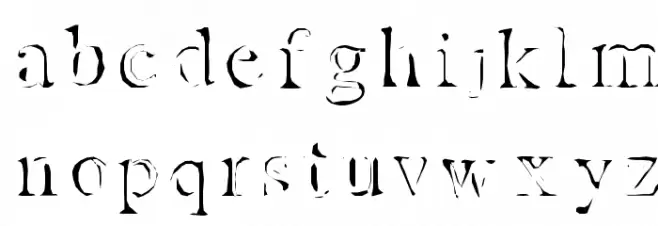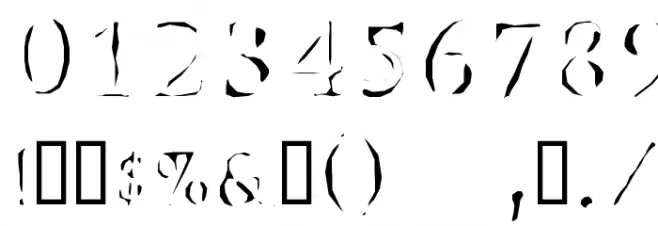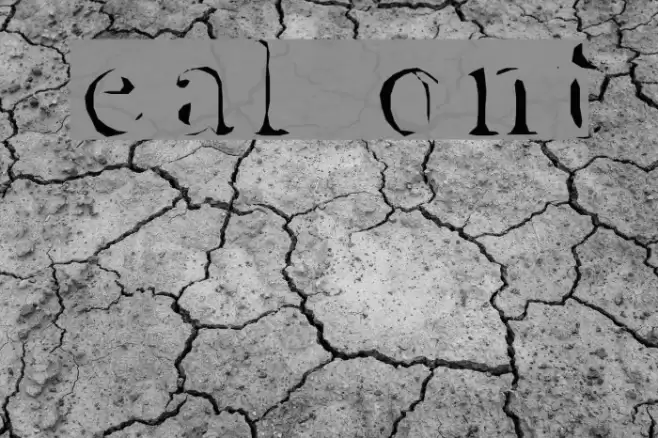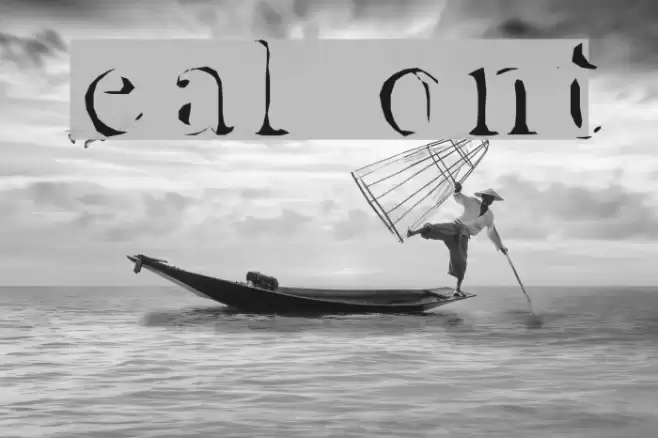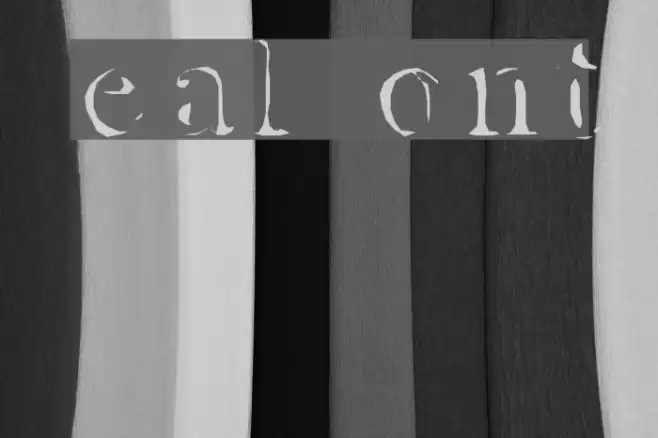
Zeal Font
Zeal Description
This font features a unique and artistic design with a stencil-like appearance. The characters are crafted with a combination of solid and cut-out sections, creating a dynamic and eye-catching effect. The lowercase letters have a slightly irregular and playful style, while the uppercase letters maintain a more structured form. The numbers and special characters follow the same design principles, ensuring consistency across the entire typeface. This font's distinctive look makes it suitable for creative and bold design projects.
A stencil-inspired font with artistic cut-out details and a playful style.
- Proposed Projects: Ideal for branding, posters, album covers, and any project requiring a bold and artistic touch.
- Use Case: Logos, Posters, Creative Projects